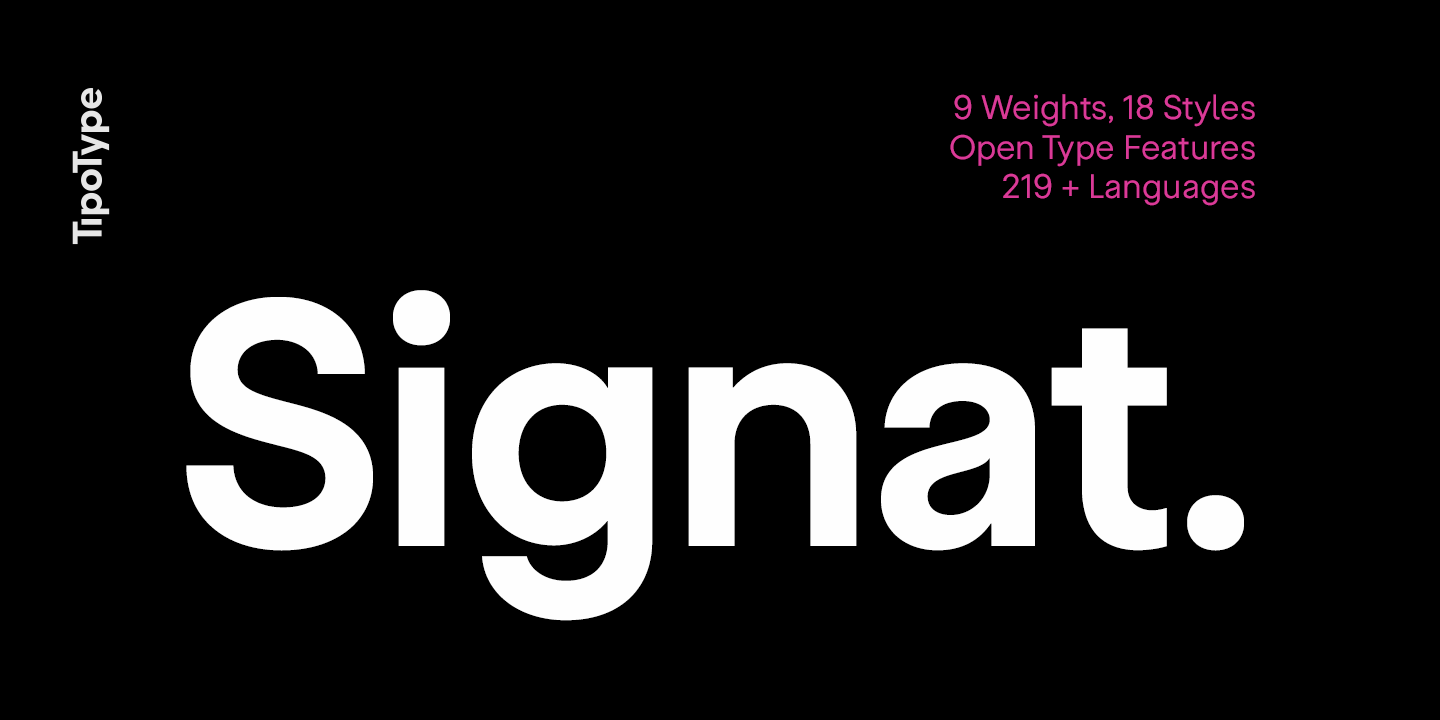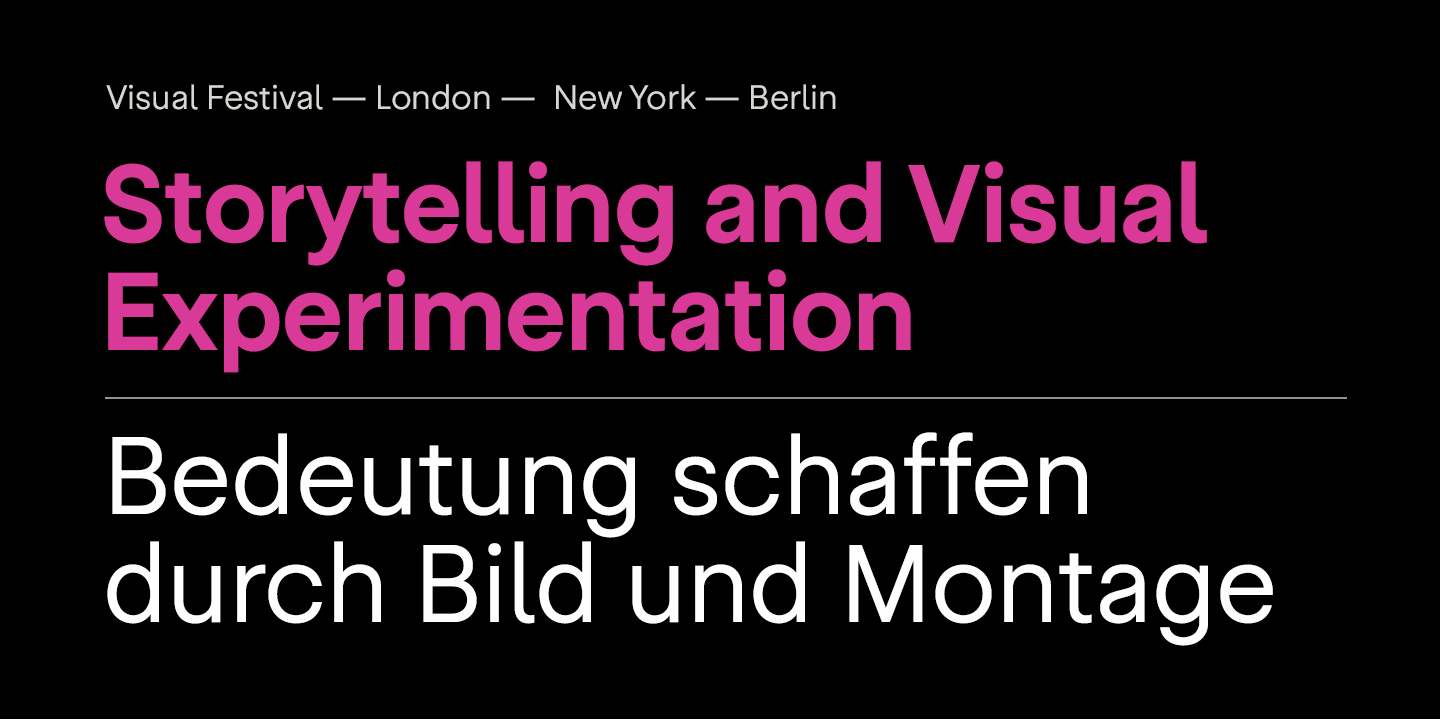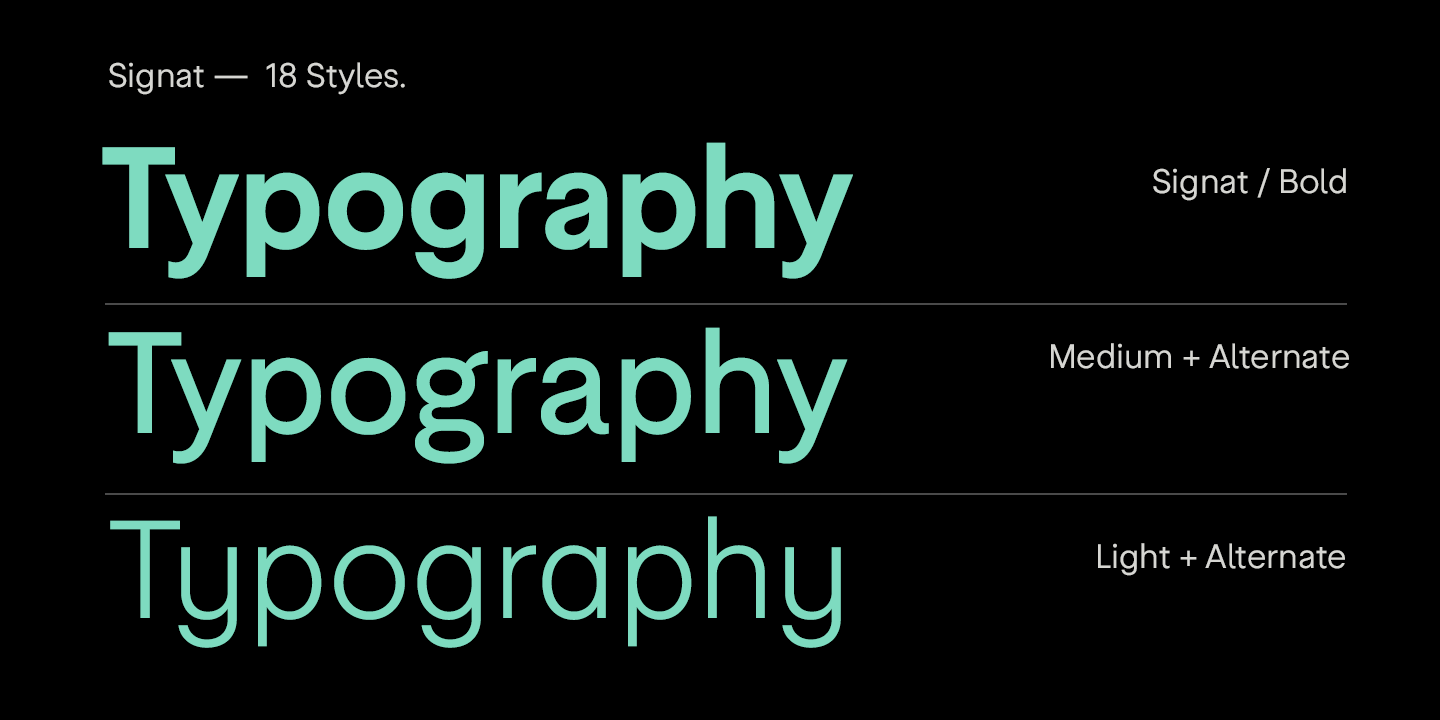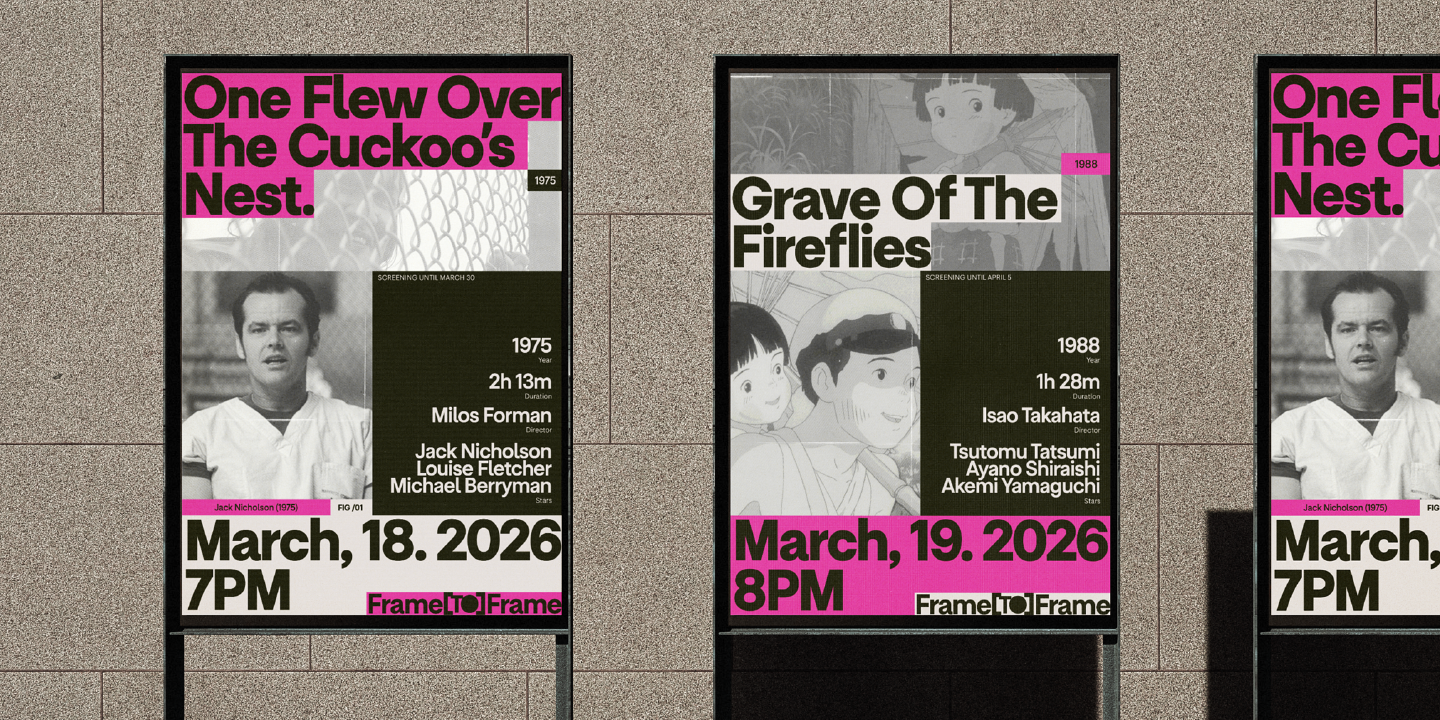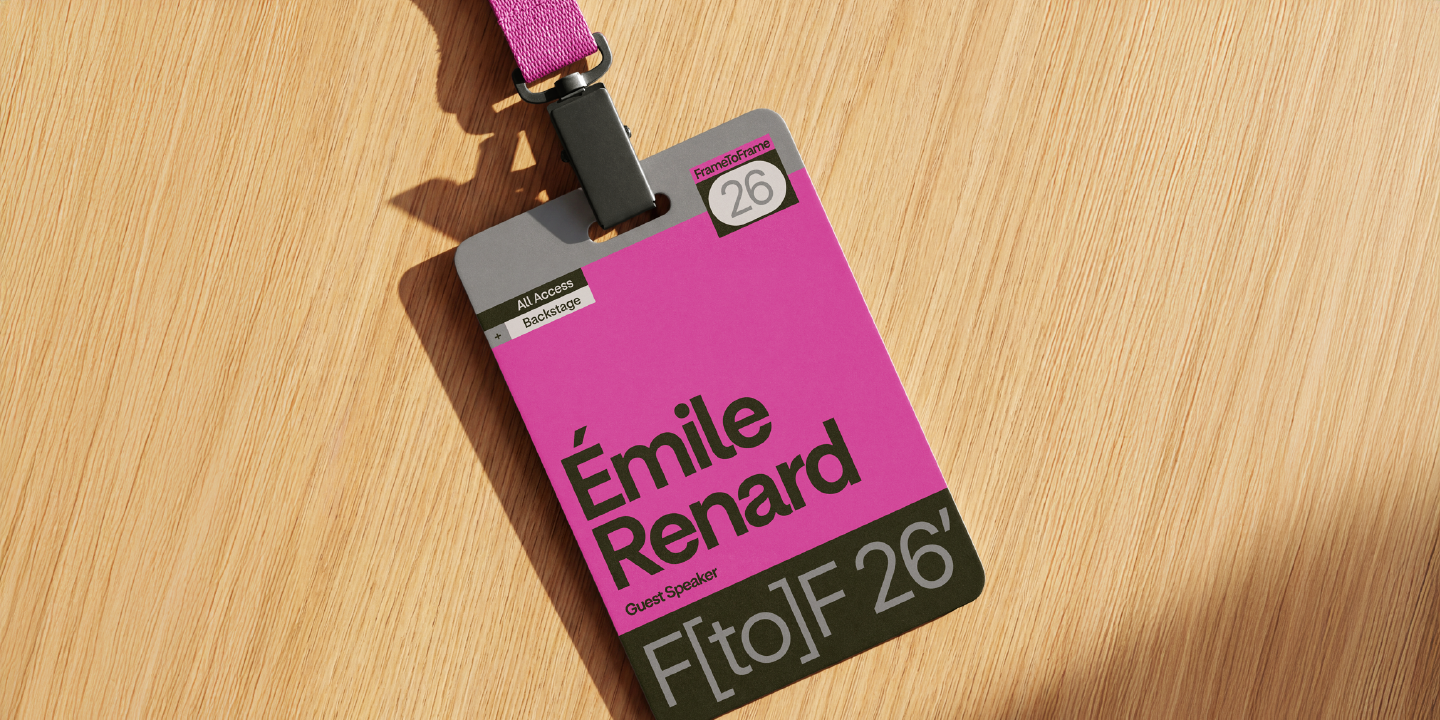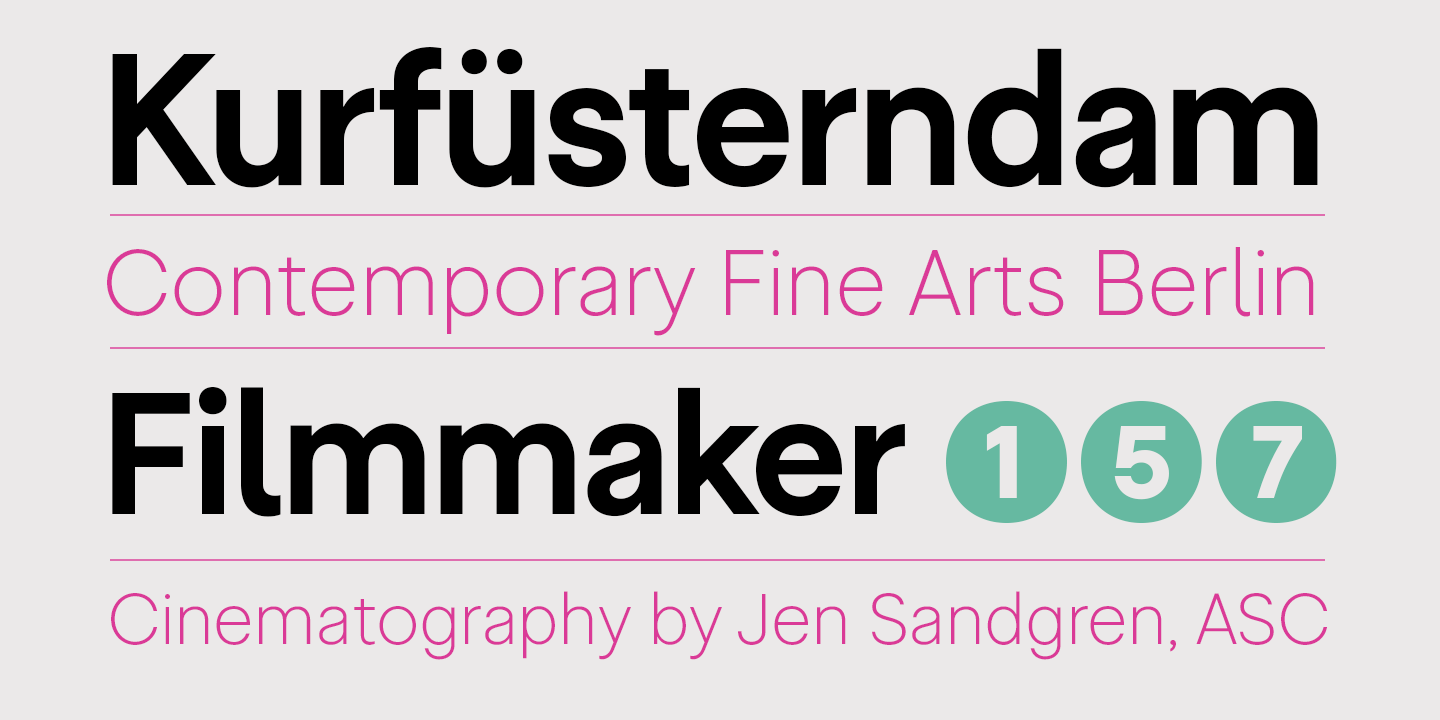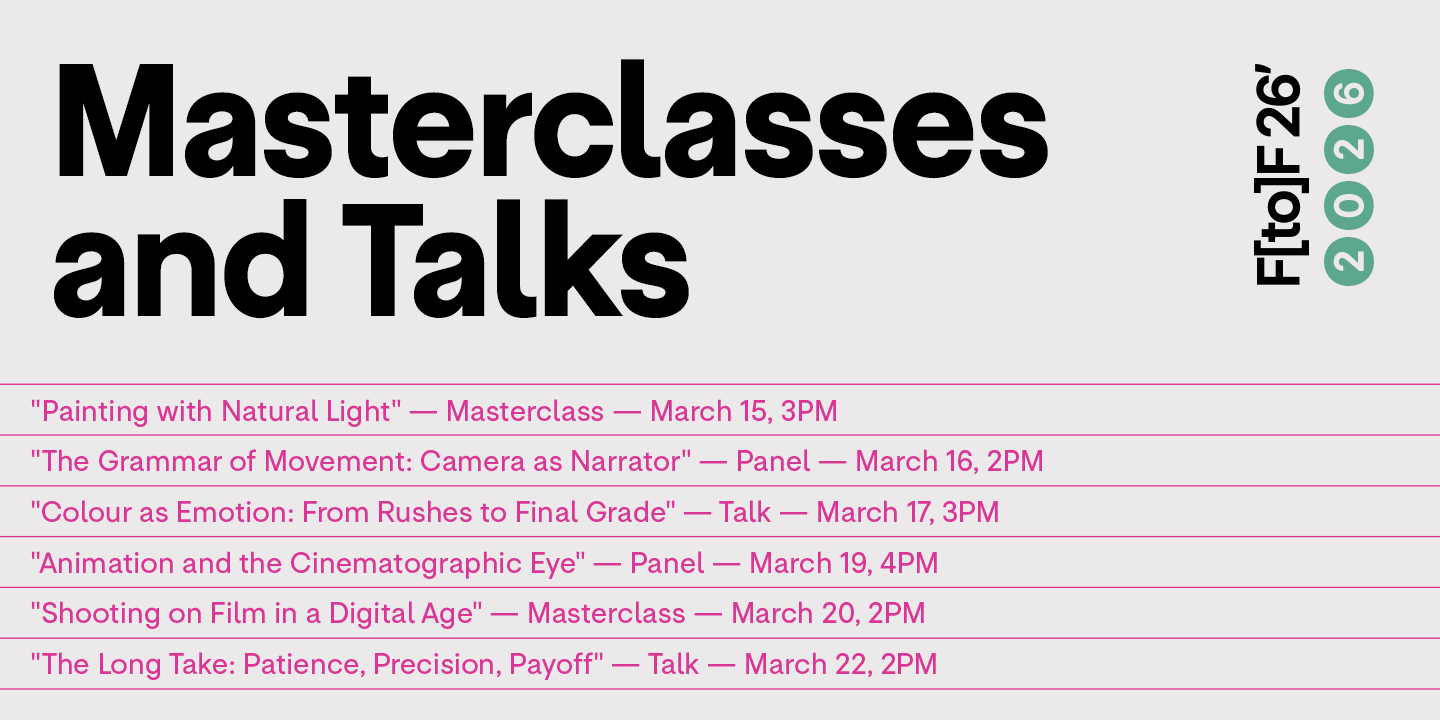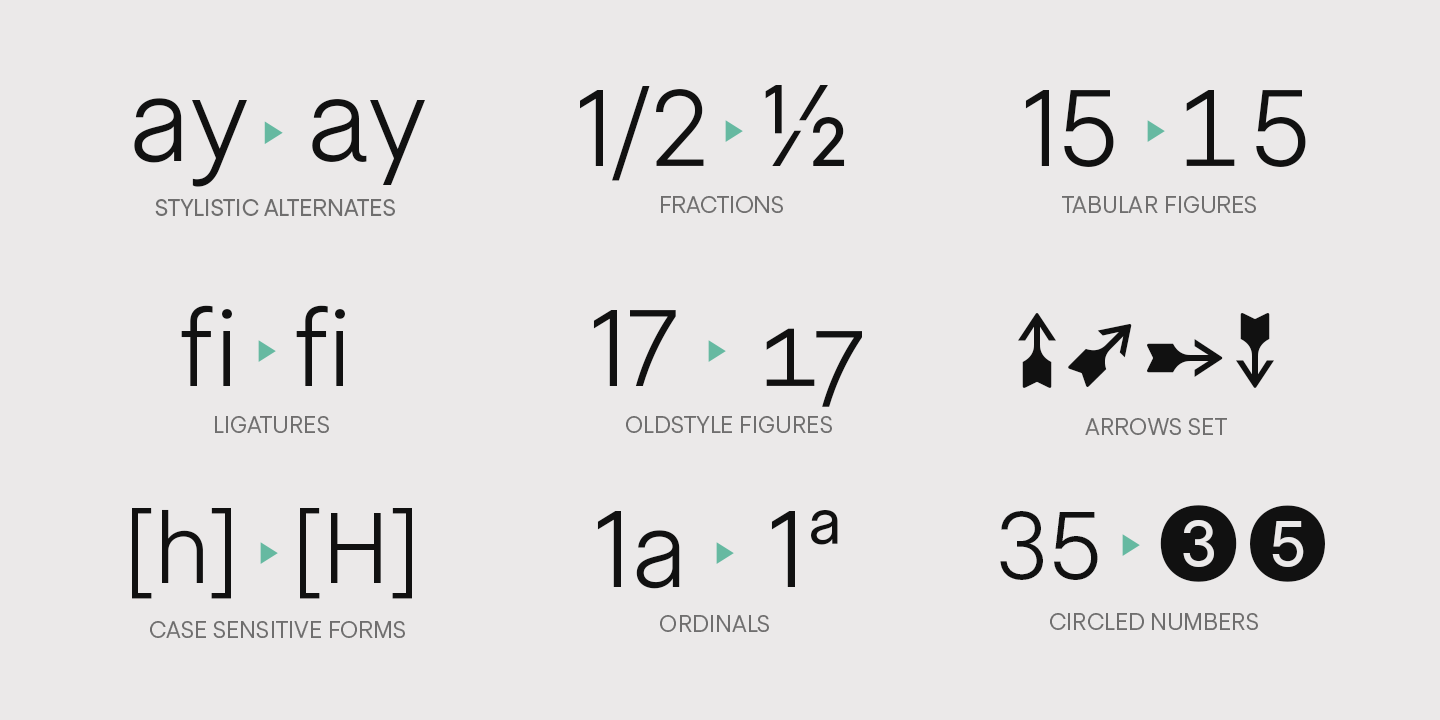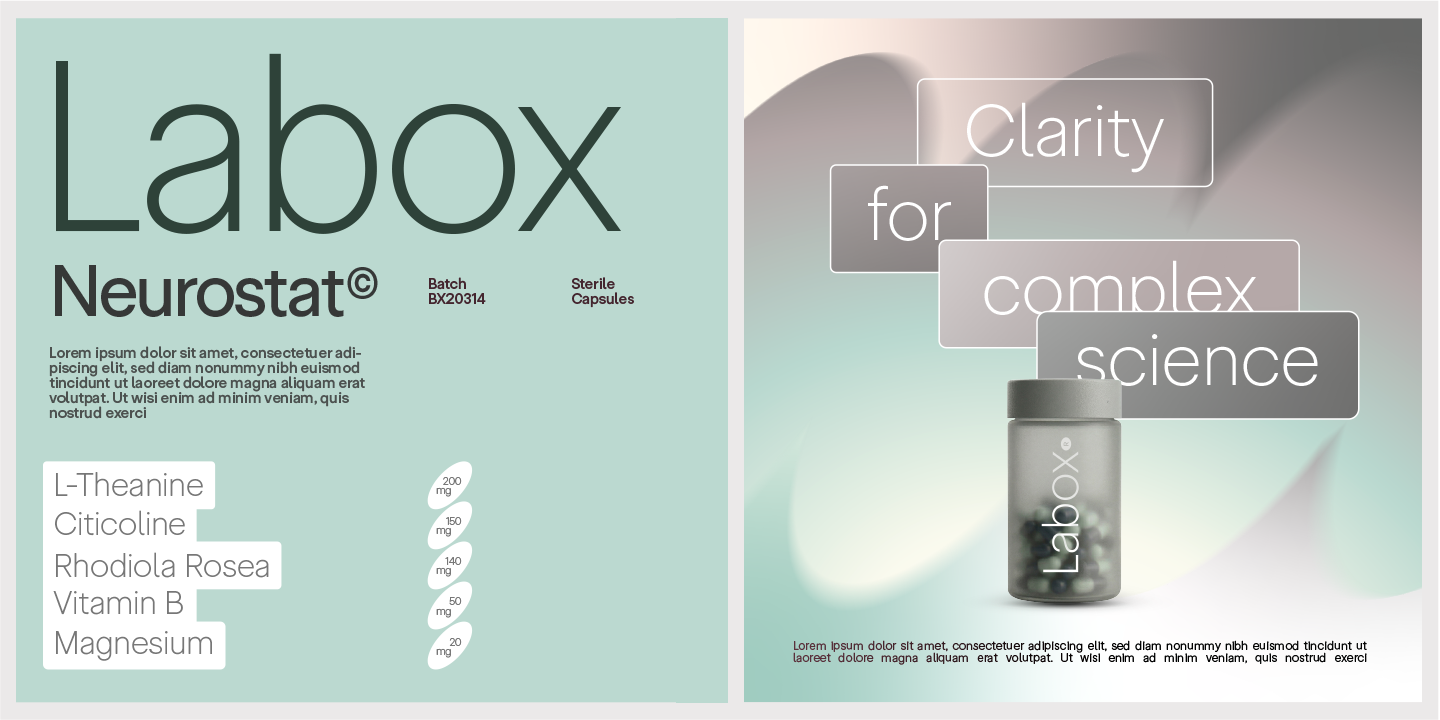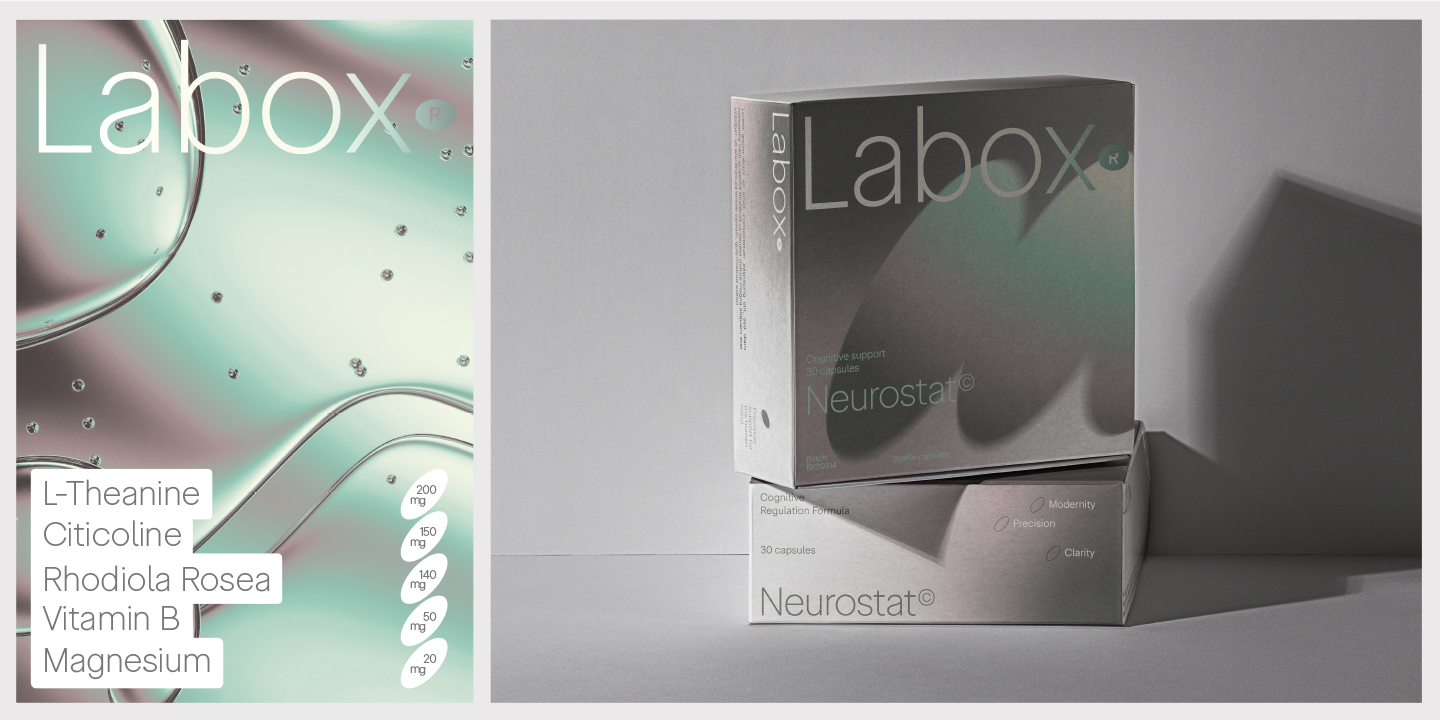
Signat-familia
It retains the clarity and legibility inherent to the genre while introducing a strategic neutrality that allows it to adapt without losing its identity. It conveys authority without harshness and presence without excess, drawing attention through balance rather than exaggerated contrast.
Thanks to this optical and structural foundation, Signat performs naturally across institutional identities, technology and service environments, fashion and high-end editorial contexts, as well as brand systems that require continuity and control. At large scales, its personality becomes more expressive; in text, it maintains composure and clarity.